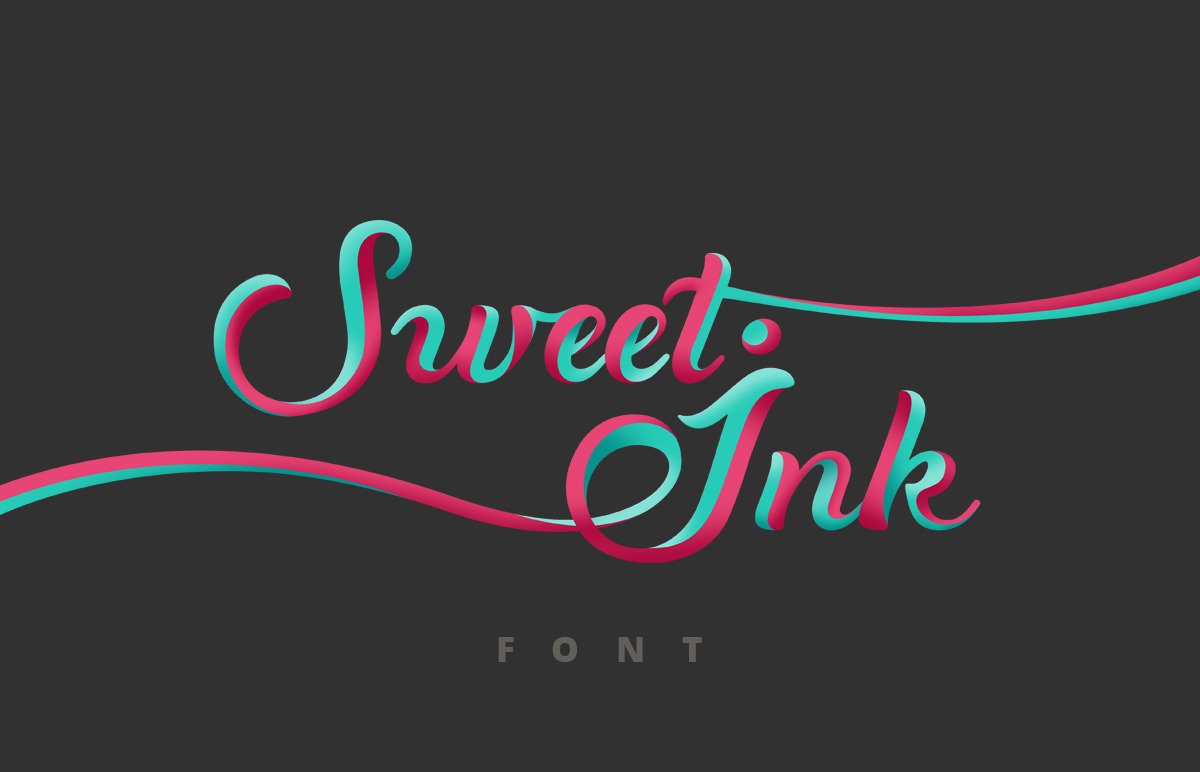
Sweet Ink Font Calligraphy
Stylish and Elegant Sweet Ink font can be used at many areas such as: Food (especially Sweets & Coffee) , Package, Fashion, Beauty etc.